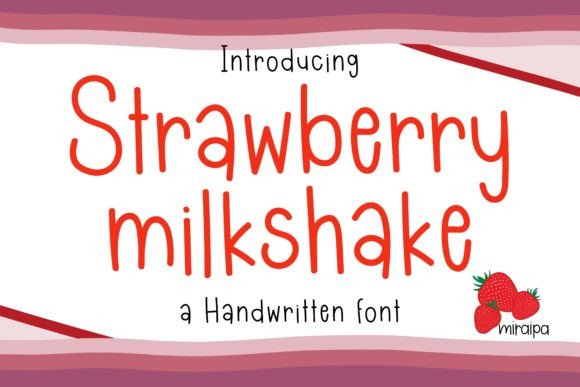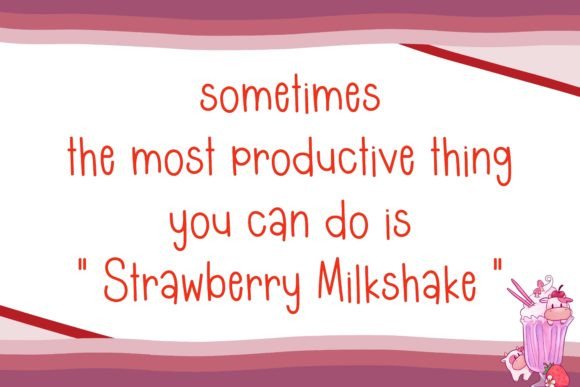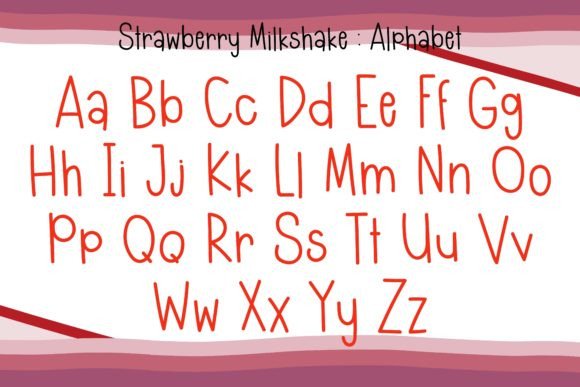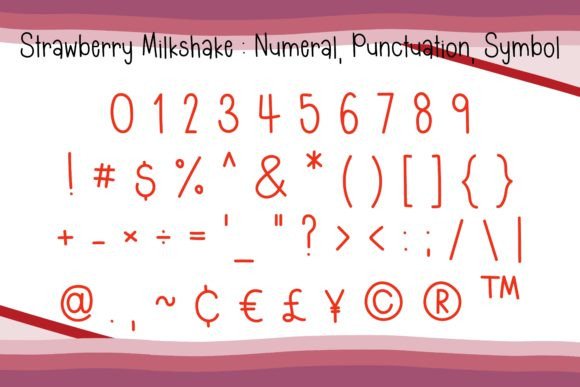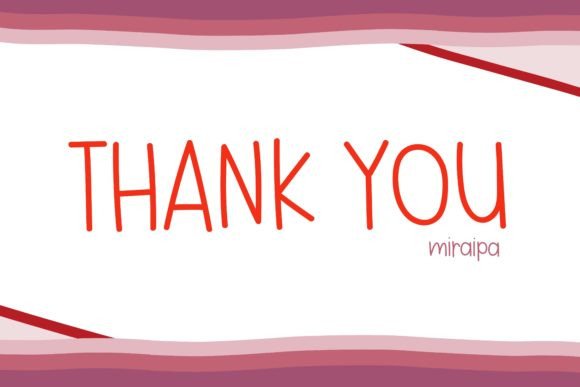
Strawberry Milkshake Font
About Strawberry Milkshake Font
Strawberry Milkshake is a delightful handwritten font crafted in a fruity and lovely style. Its charming design adds a touch of sweetness and whimsy to your projects, making it a perfect addition to your fonts library. Incorporating Strawberry Milkshake into your DIY projects will infuse them with a playful and vibrant energy, bringing your creative ideas to life with a dash of fruity charm.
The font’s handwritten style exudes a sense of authenticity and warmth, making it particularly appealing for personal and creative projects. Whether you’re working on greeting cards, invitations, scrapbooking, or any other DIY endeavor, Strawberry Milkshake adds a unique and delightful character that captures the essence of a sweet treat.
The fruity and lovely aesthetic of the font makes it suitable for a variety of themes and occasions. From summer-themed designs to projects celebrating love and joy, Strawberry Milkshake’s playful charm enhances the overall visual appeal.
Adding Strawberry Milkshake to your fonts library provides you with a versatile tool for creative expression. Its handwritten and whimsical nature allows it to adapt seamlessly to various design contexts, making it a go-to choice for those seeking a font that effortlessly conveys a lighthearted and charming vibe.
In summary, Strawberry Milkshake is more than just a font; it’s a design element that brings a fruity and lovely touch to your DIY projects. With its playful style and versatile appeal, Strawberry Milkshake is ready to add a burst of sweetness to your creative endeavors, making them even more enjoyable and visually captivating.